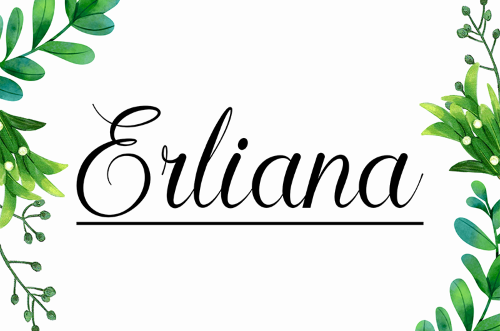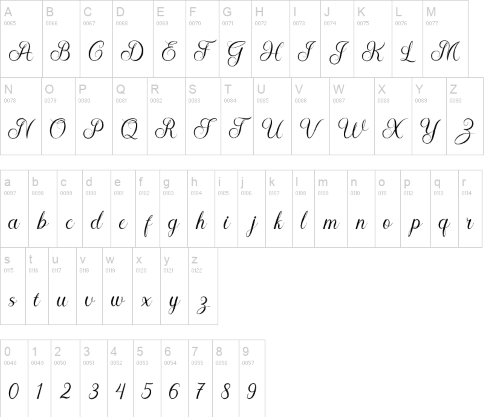
Erliana Font
Erliana Font is a lovely script typeface filled with charming, playful characters. Its smooth, flowing strokes and cheerful personality make it perfect for invitations, logos, quotes, greeting cards, and creative branding. Erliana adds warmth, joy, and a whimsical handwritten touch to any design.
➤ Font Name: Erliana
➤ Designer: Aan Samukur
➤ Style: Calligraphy